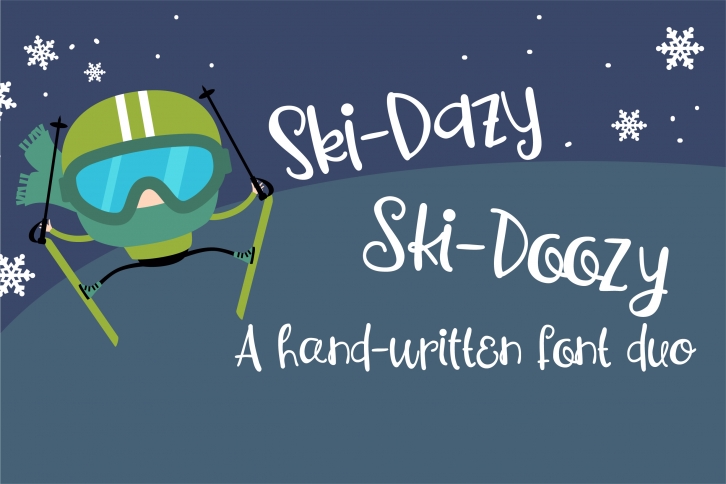
PN Ski-Doozy and Ski-Dazy Duo is a great font that was designed by Illustration Ink. Imagine the amount of combinations you can create using this font! The archive is 9.51 MB and it was released on August 8, 2018. PN Ski-Doozy and Ski-Dazy Duo looks beautiful on wedding invitations, greeting cards, logos, posters, labels, t-shirt designs, logos, business cards and is perfect for use in ink or watercolor works, fashion, magazines, packaging and food menus, children's books and more!